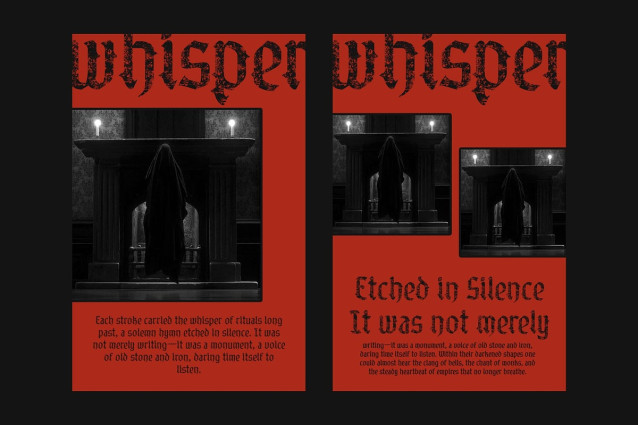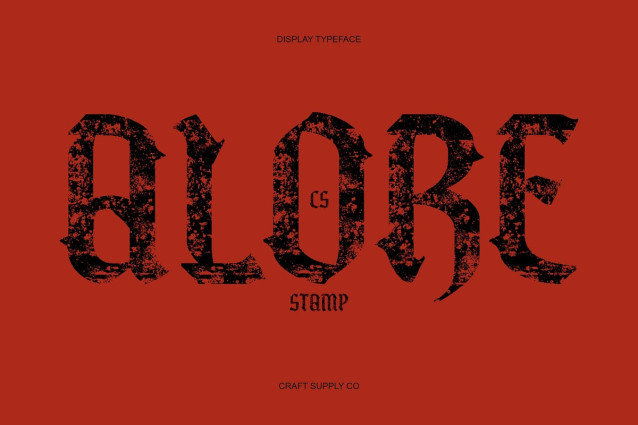
CS Alore Stamp Font
CS Alore Stamp Font is a dramatic blackletter font that emphasizes bold angular strokes and historic elegance. Its commanding structure recalls medieval manuscripts and traditional signage, giving it a strong and authoritative presence. Each letterform embodies the gothic essence, making it ideal for projects that demand heritage and impact.
Stamp Texture for Bold Personality What makes CS Alore Stamp unique is its stamped finish. The rough, ink-like impression adds a handmade, tactile quality that enhances its dramatic style. This textural detail softens the rigidity of blackletter while amplifying its expressive character, creating a look that is both powerful and artistic.
Perfect for Gothic and Heritage Themes From gothic posters and medieval-inspired layouts to beer labels and cultural branding, CS Alore Stamp excels in settings that celebrate tradition and bold aesthetics. Its ornamental beauty and stamped authenticity ensure that it resonates with audiences seeking depth, history, and drama.
Versatility in Modern and Classic Use Though rooted in historical traditions, CS Alore Stamp adapts seamlessly to modern branding needs. It can elevate packaging, bring intensity to logos, or add a distinctive flair to editorial designs. This versatility makes it a valuable choice for designers wanting to blend gothic heritage with contemporary creativity.